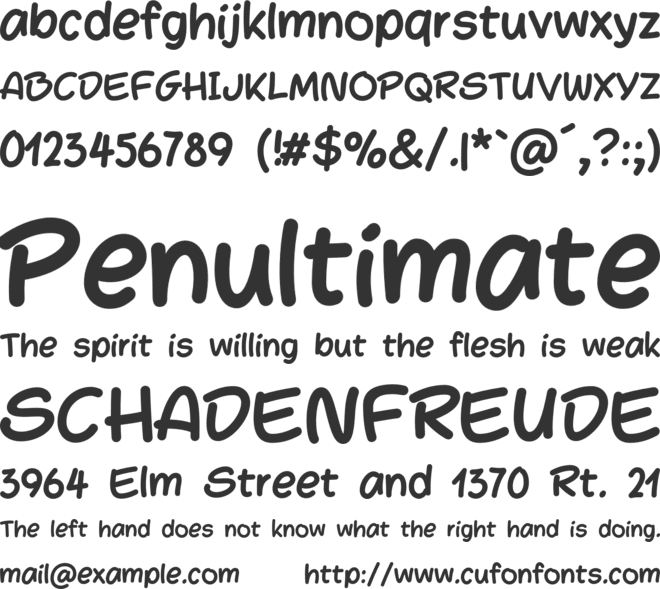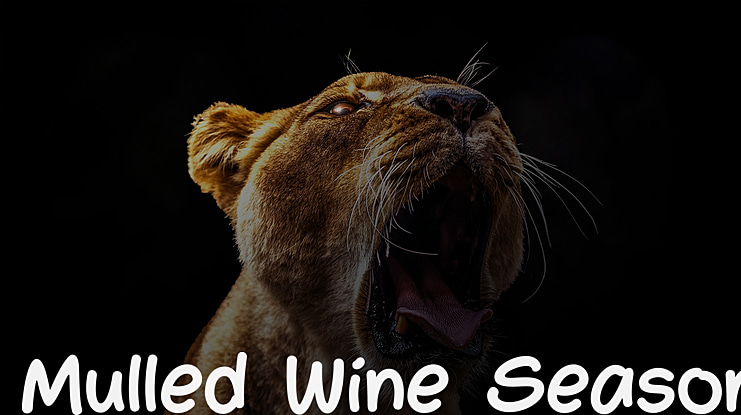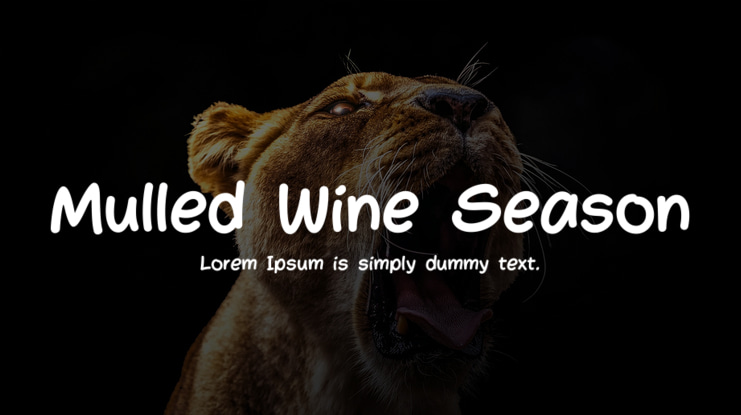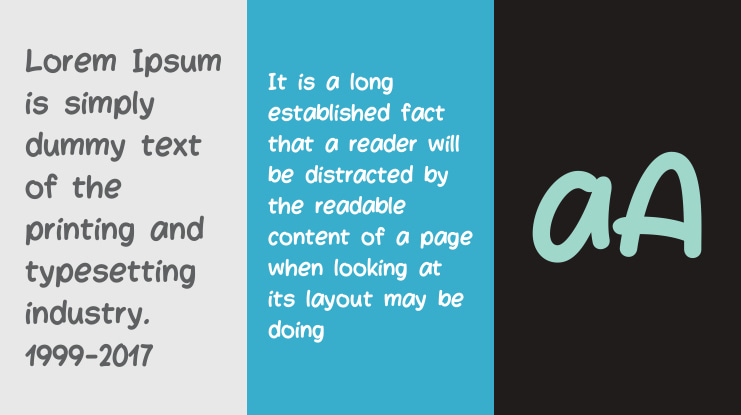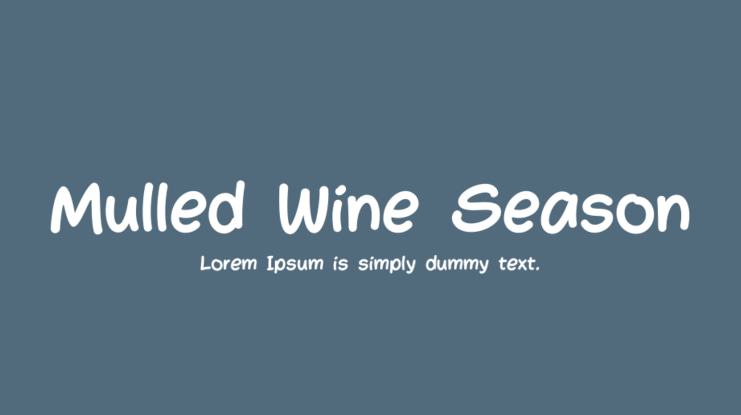
Mulled Wine Season Font
Roland Hüse
“Mulled Wine Season”
is a bold, rounded font with a bouncing, playful rythm and tight letterspacing.
Perfect for Children’s Book, Cartoon themes, etc.
The character set covers Western and Eastern European Latin accents and special characters along with basic punctuation. Future update will include Old Hungarian, Vietnamese and Cyrillic scripts!